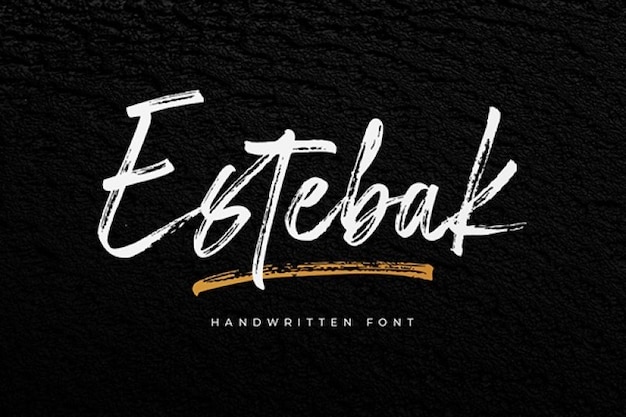
Estebak Font
Estebak is one of the most fantastic fonts you will find nearby. Its natural handmade brush strokes and irregular baseline add a contemporary approach to your projects. This is helpful for any project, especially for logos, tattoos, badges, emblems, headings, posters, packaging, or clothing. Download it now!